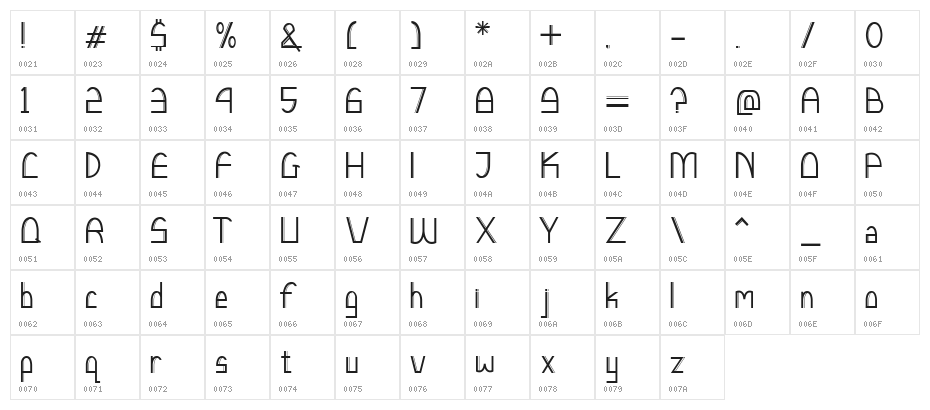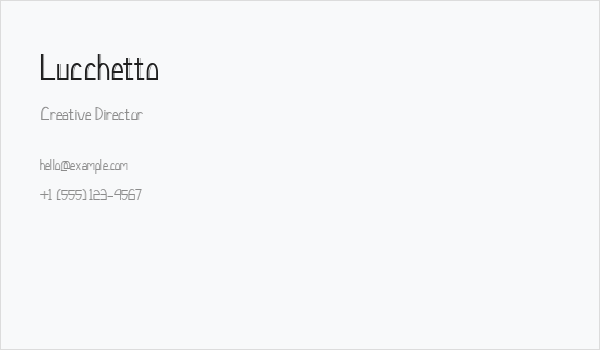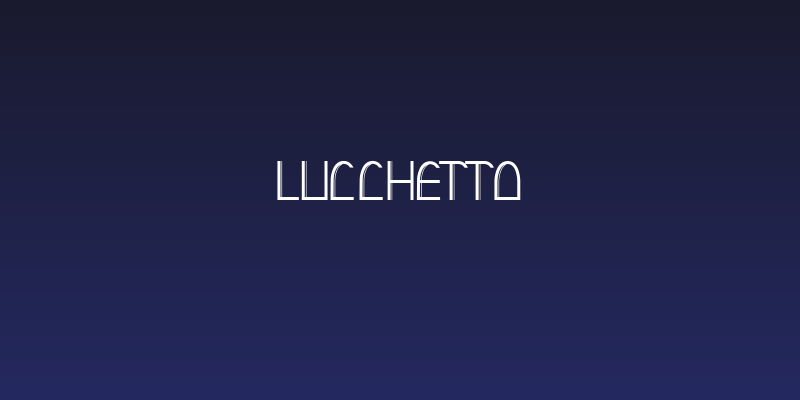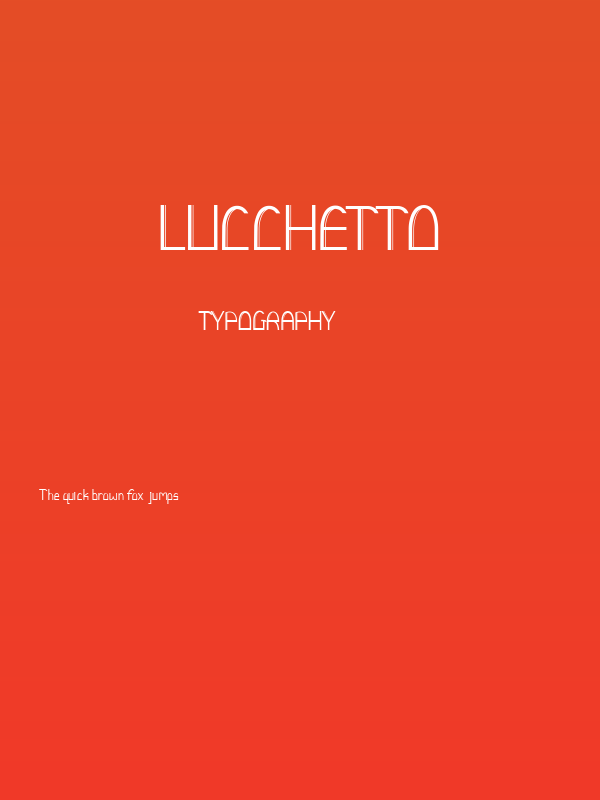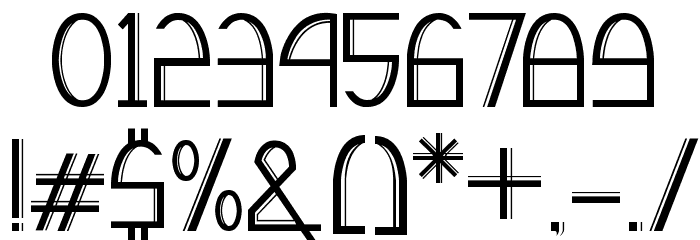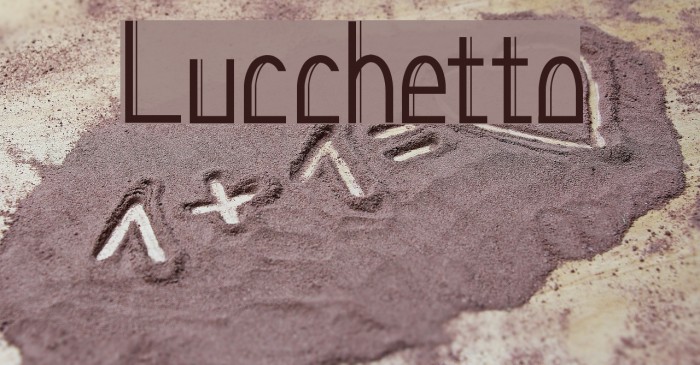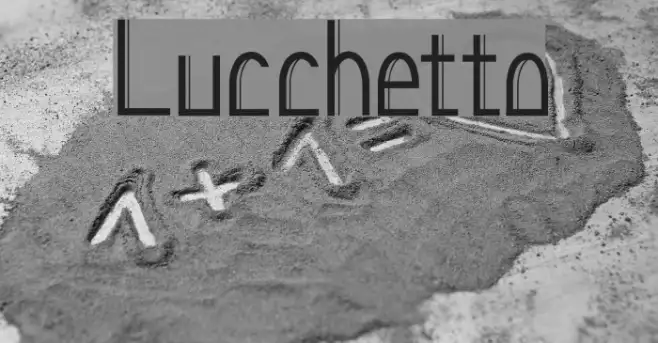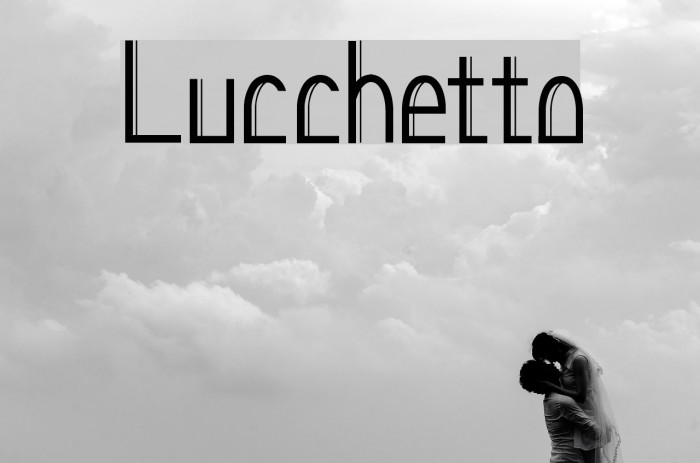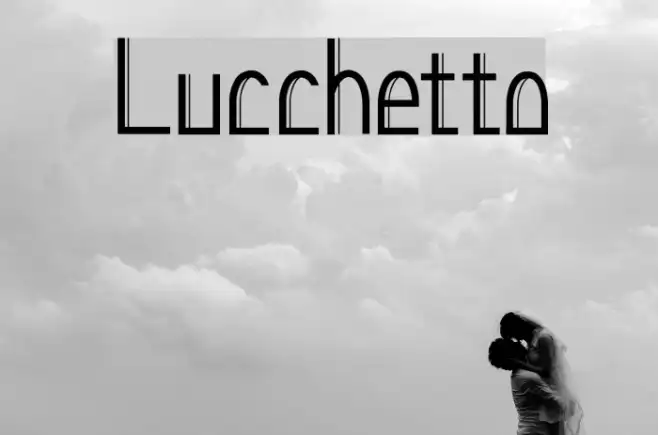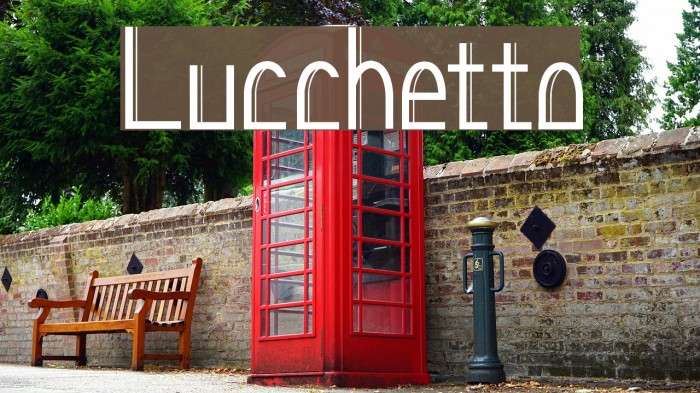
Lucchetto Font
Lucchetto Description
This font features a modern and geometric design, characterized by its clean lines and structured forms. The uppercase letters exhibit a unique combination of straight edges and subtle curves, creating a futuristic and stylish appearance. The lowercase letters maintain a consistent style, with a slightly more rounded approach, enhancing readability while preserving the overall geometric aesthetic. Numbers are designed with a similar geometric precision, ensuring uniformity across all characters. The special characters complement the set with their distinct yet cohesive design, making this font versatile for various applications.
| Proposed Projects | Ideal for branding, advertising, digital interfaces, and modern editorial design. |